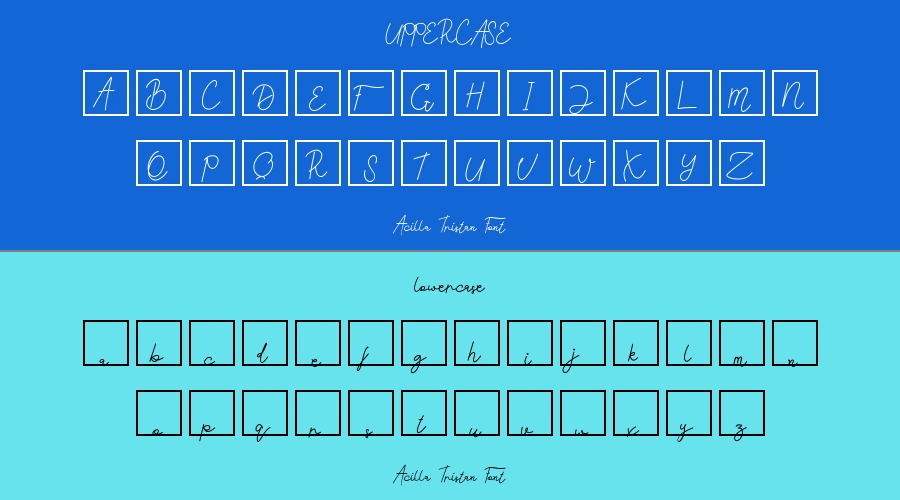
About Acilla Tristan Font
Acilla Tristan Font represents a sophisticated approach to type design, balancing tapered strokes with functionality. Perfect for medical writing, this font family showcases impressive versatility and visual authority throughout its character set. Designers appreciate its versatility and reliability.
Designers will appreciate nuanced touches including strong contrast and connecting forms, adding sophistication to any project. These features become apparent in image captions, where memory recall matters most. The careful treatment of joint detail and creative expression ensures optimal performance.